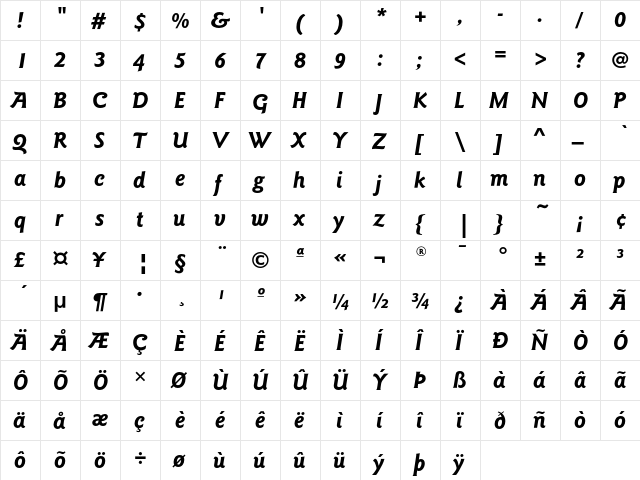
GoudySansEF BoldItalic
Design Context for GoudySansEF Typeface
GoudySansEF is a composed and adaptable typeface that performs quietly and consistently across a wide range of design contexts. Its italic angle brings a sense of urgency and motion to the letterforms. Its bold stroke weight gives it real presence on the page.
Pro Tip: Try GoudySansEF for annotation and caption copy alongside an upright companion — the contrast in angle creates a dynamic but ordered typographic system.